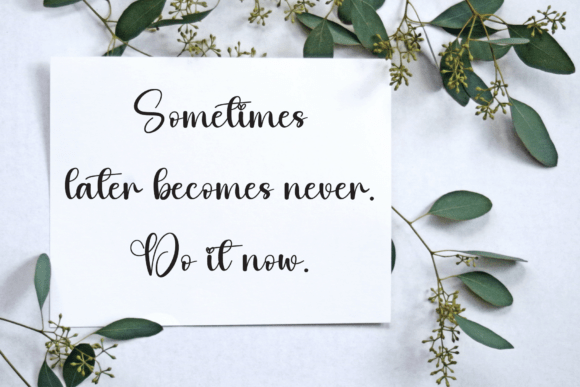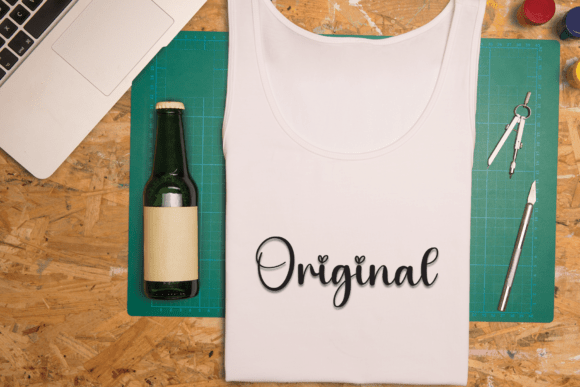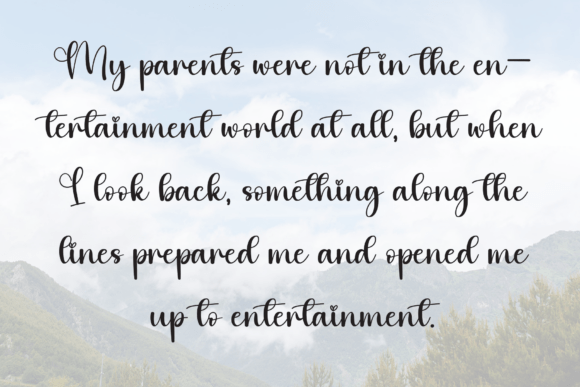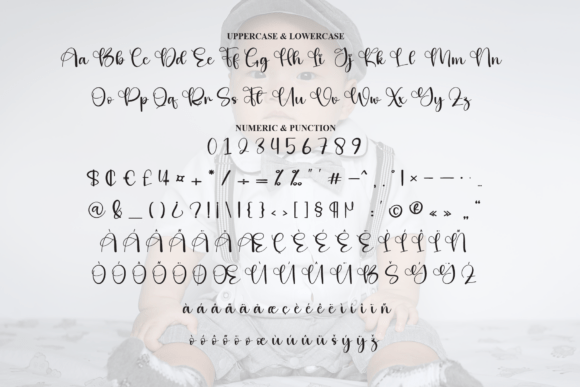
Babyboy Font: Elevate Your Designs with Elegance and Sophistication
In the world of typography, few fonts manage to strike a balance between elegance and modernity as effectively as the Babyboy Font. This stylish script font has been making waves among designers and crafters alike, and for good reason. With its graceful strokes, fluid curves, and meticulously crafted letterforms, Babyboy Font brings a touch of hand-drawn calligraphy to the table, but with a contemporary twist that sets it apart from more traditional fonts.
The Characteristics of Babyboy Font
So, what makes Babyboy Font so special? Let’s take a closer look at its key characteristics:
- Graceful Strokes: Each stroke in the Babyboy Font is carefully designed to flow smoothly into the next, creating a sense of natural movement and fluidity.
- Fluid Curves: The curves in Babyboy Font are meticulously crafted to add a touch of elegance and sophistication to any design.
- Carefully Crafted Letterforms: Every letterform in the Babyboy Font is designed with precision and attention to detail, ensuring that each character is not only aesthetically pleasing but also highly legible.
Uses of Babyboy Font
Babyboy Font is incredibly versatile, making it suitable for a wide range of design applications. Here are some of the most popular uses for this beautiful font:
- Logos: Add a touch of elegance and sophistication to your brand’s logo with Babyboy Font. Its unique and stylish letterforms make it perfect for businesses that want to stand out from the crowd.
- Invitations: Whether you’re planning a wedding, birthday party, or other special occasion, Babyboy Font is an excellent choice for your invitations. Its refined and polished details will set the tone for a memorable event.
- Packaging: Elevate your product packaging with Babyboy Font. Its modern and stylish aesthetic will help your product stand out on store shelves and make a lasting impression on customers.
- Social Media Graphics: Add a touch of sophistication to your social media graphics with Babyboy Font. Its fluid curves and graceful strokes will make your posts and stories look refined and professional.
Benefits of Using Babyboy Font
So, why should you choose Babyboy Font for your next design project? Here are just a few benefits of using this beautiful font:
- Versatility: Babyboy Font is incredibly versatile, making it suitable for a wide range of design applications.
- Visual Appeal: With its fluid curves and polished details, Babyboy Font delivers a high level of visual appeal that will elevate any design.
- Elegance: Babyboy Font exudes elegance and sophistication, making it perfect for designs that require a refined and polished aesthetic.
- Modernity: Despite its elegant and refined aesthetic, Babyboy Font has a distinctly modern feel that will help your designs stand out in a crowded marketplace.
Tips for Using Babyboy Font Effectively
To get the most out of Babyboy Font, here are a few tips to keep in mind:
- Use it sparingly: While Babyboy Font is incredibly beautiful, it can be overwhelming if used excessively. Use it sparingly to add a touch of elegance and sophistication to your design.
- Pair it with other fonts: Babyboy Font pairs well with a variety of other fonts, including sans-serif fonts and serif fonts. Experiment with different pairings to find the one that works best for your design.
- Adjust the size and color: To add visual interest to your design, experiment with different sizes and colors of Babyboy Font.
In conclusion, Babyboy Font is a stylish script font that exudes elegance and contemporary charm. With its graceful strokes, fluid curves, and carefully crafted letterforms, it’s the perfect choice for designers and crafters looking to add a touch of sophistication to their designs. Whether you’re creating logos, invitations, packaging, or social media graphics, Babyboy Font is an excellent choice. Its versatility, visual appeal, and modern aesthetic make it a valuable addition to any designer’s toolkit.